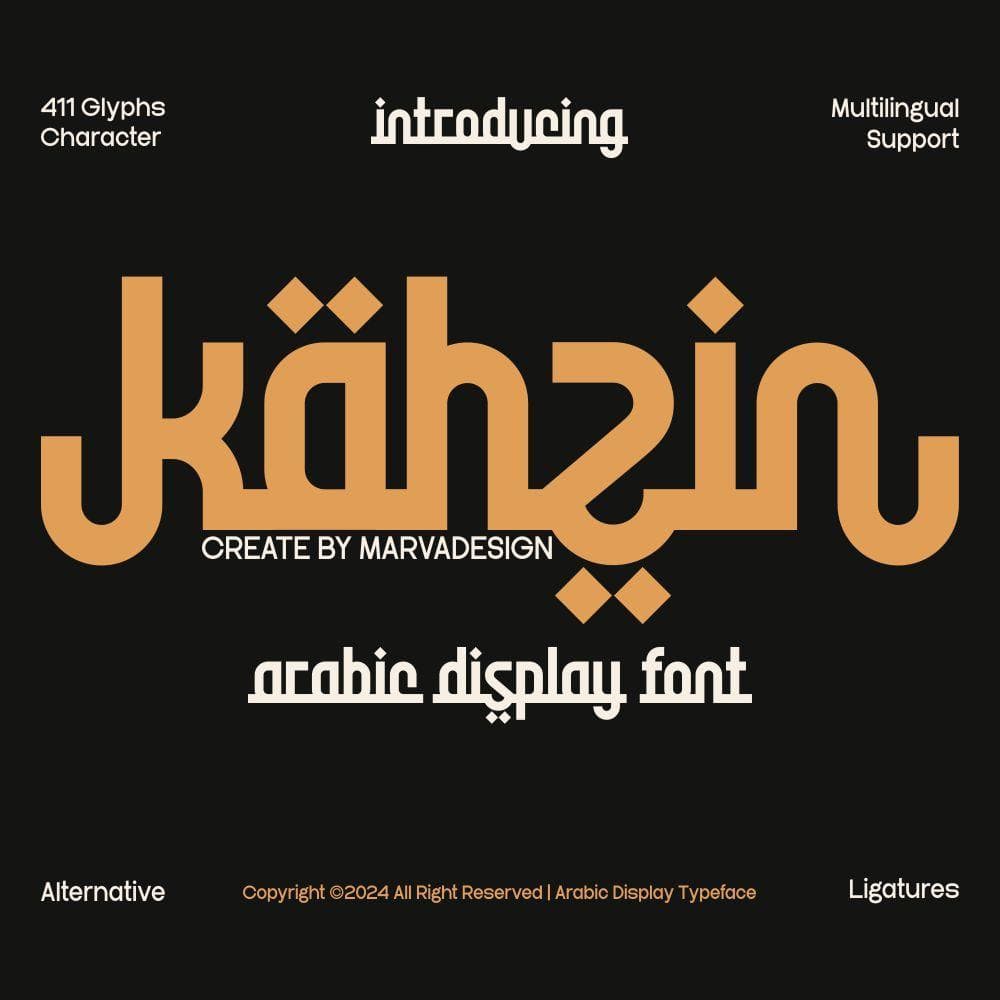
<p>Kahzin is a distinctive Arabic-inspired display typeface designed by Marvadesign, blending traditional calligraphic influences with contemporary geometric styling. This typeface features a bold, structured appearance with clean lines and smooth curves, making it highly suitable for display purposes. The design integrates Latin-based typography with characteristics of Arabic letterforms, creating a unique and visually striking aesthetic.<br>With an extensive character set of <strong>411 glyphs</strong>, Kahzin supports uppercase and lowercase letters, numerals, punctuation, special symbols, and a variety of ligatures. The font also includes alternative glyphs, allowing designers to experiment with different stylistic options to enhance their compositions. Additionally, it offers multilingual support, making it a versatile choice for global projects requiring accented characters and diverse language compatibility.<br>Kahzin is best suited for <strong>branding, advertising, editorial layouts, posters, social media graphics, and event promotions</strong>. Its bold and decorative nature ensures high visibility and strong visual impact, making it ideal for projects that demand attention. When paired with minimalist sans-serif or traditional serif fonts, Kahzin creates a balanced and modern typographic combination.</p>